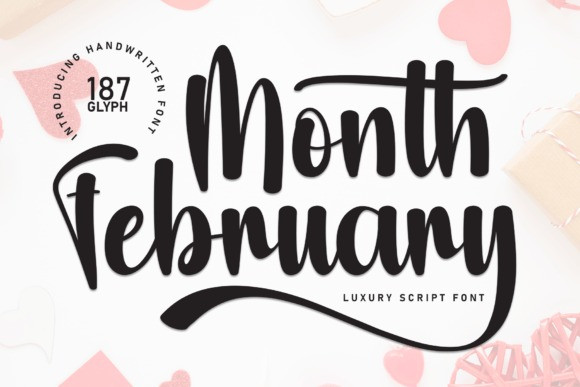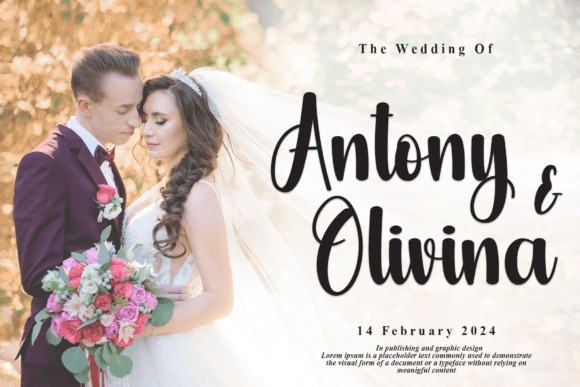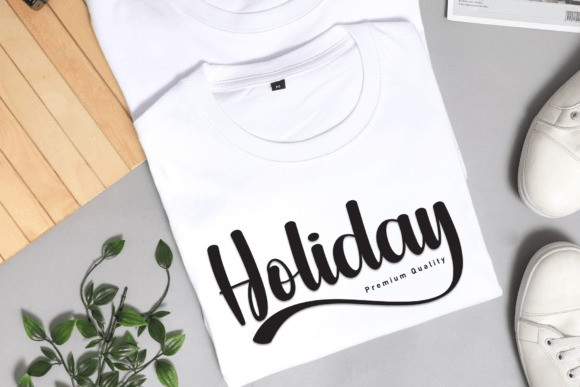
Month February Script Font
Month February Script Font is a charming handwritten font imbued with a sense of freshness and casual elegance. Its fluid strokes and organic lines evoke a laid-back vibe, making it perfect for various design projects. Whether used for branding, invitations, or social media graphics, Month February adds a touch of warmth and personality.